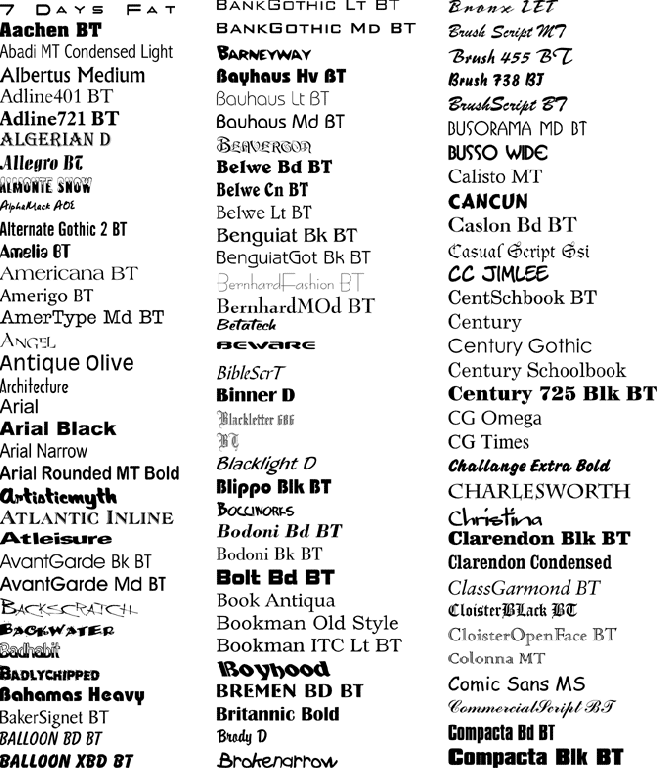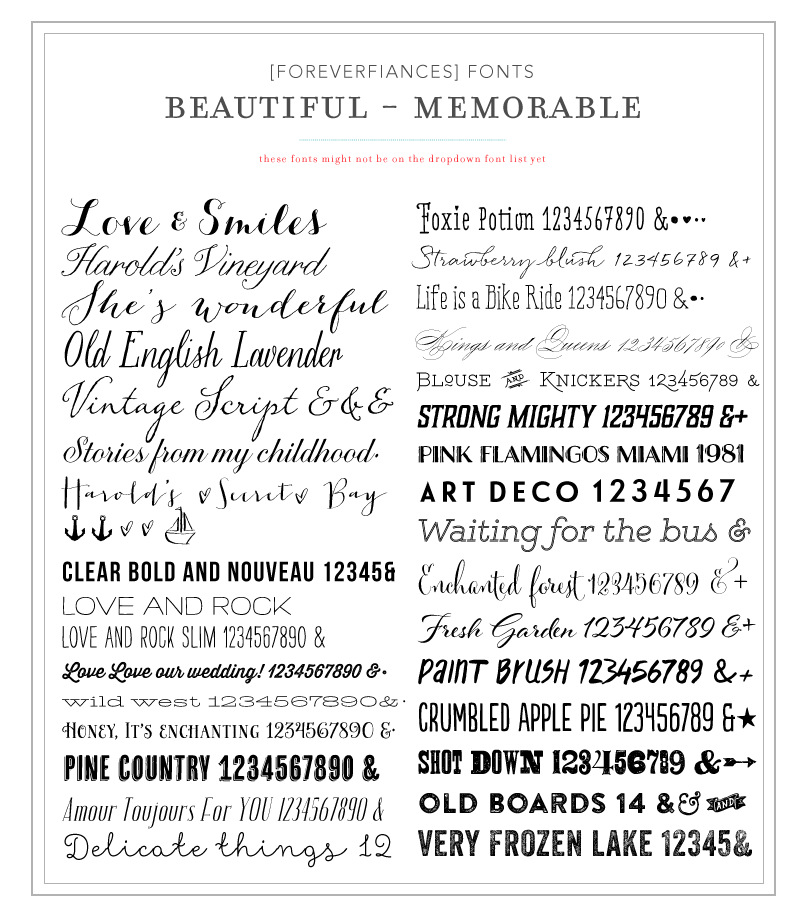
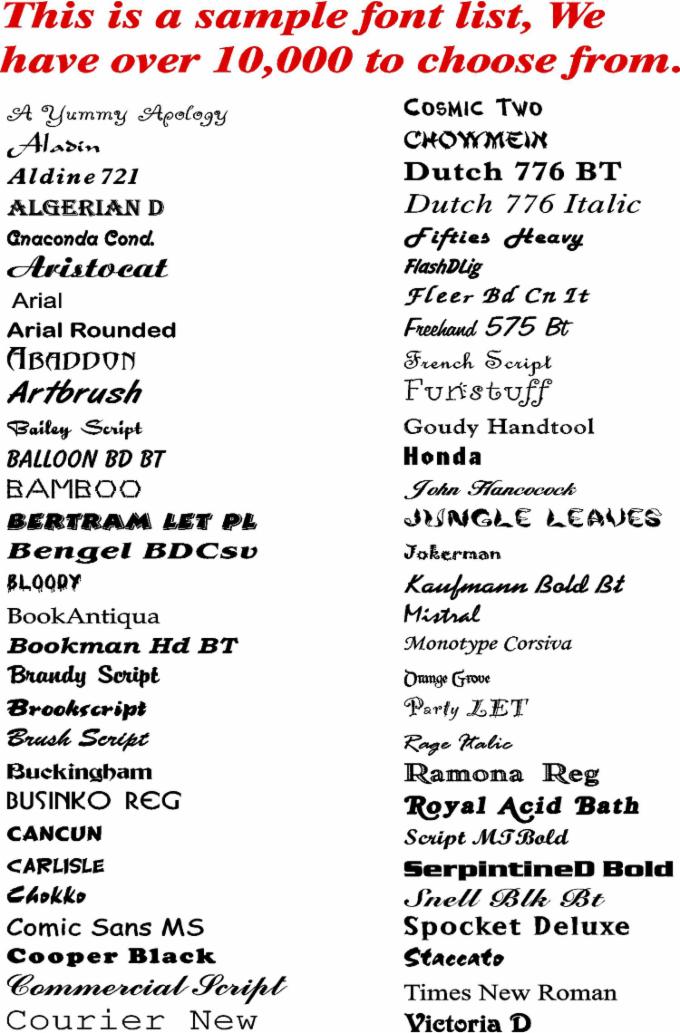
In our guide to the best fonts for websites, we summarized the key characteristics to look for: Fonts, on the other hand, are a part of the typeface, it's a specific style. We know that picking out the right font for a church series graphic or social media post can seem like an impossible (or at least very time consuming) task.
We Know That Picking Out The Right Font For A Church Series Graphic Or Social Media Post Can Seem Like An Impossible (Or At Least Very Time Consuming) Task.
Yet given they need to fit 7 columns on a screen that’s only 1440px wide, and many events are quite short, this is an ideal font size choice. So, we have created a guide that shares our community's top fonts. Font availability varies depending on your software and whether you’re using a pc or a mac, so for comprehensive lists, see will harris’s list of font pairs and douglas bonneville’s 19 top fonts in 19 combinations.
The Font Consists Of One Specific Point Size, Weight, Width And Other Styling Elements, Like The Italic Style For Example.
For the purposes of this little guide, we'll be using this font. It usually starts with getting to know your brand and your brand values better. The ultimate font guide is an easy to use guide that explains how to use downloaded fonts.
If You Begin With These As You Create Your Design In Cricut Design Space (Or Whatever Software You’re Using), We’re Confident You Will End Up With A Beautiful Look.
Fonts, on the other hand, are a part of the typeface, it's a specific style. Open sans, merriweather, pinyon, and oswald are google fonts freely available for use on the web. The final decision is a matter of judging which one looks most suitable for your message.
Web fonts should not be used on marketing materials. Fonts are used in string meters with the fontface option. One of the reasons why serifs are heavily preferred in literature and newspapers is because of legibility.
The first step is to find your font. Finding font inspiration is easy (for example with the cool font ideas and canva font combinations later down this guide). Understanding the wide variety of styles, their history and visual characteristics, helps designers make more informed choices and come up with better type combinations for their projects.